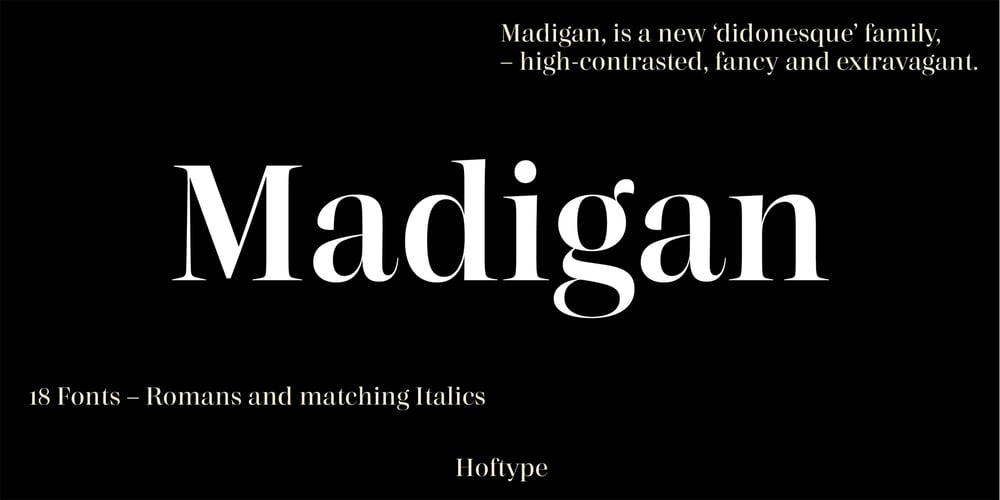
Madigan Font Family was designed by Dieter Hofrichter and published by Hoftype. Madigan contains 18 styles and family package options. Madigan is a high-contrasted, crisp, and attractive typeface. While situated firmly in the category of ‘modern’ types, it appears fancy and lively, showing extravagant details in display sizes.